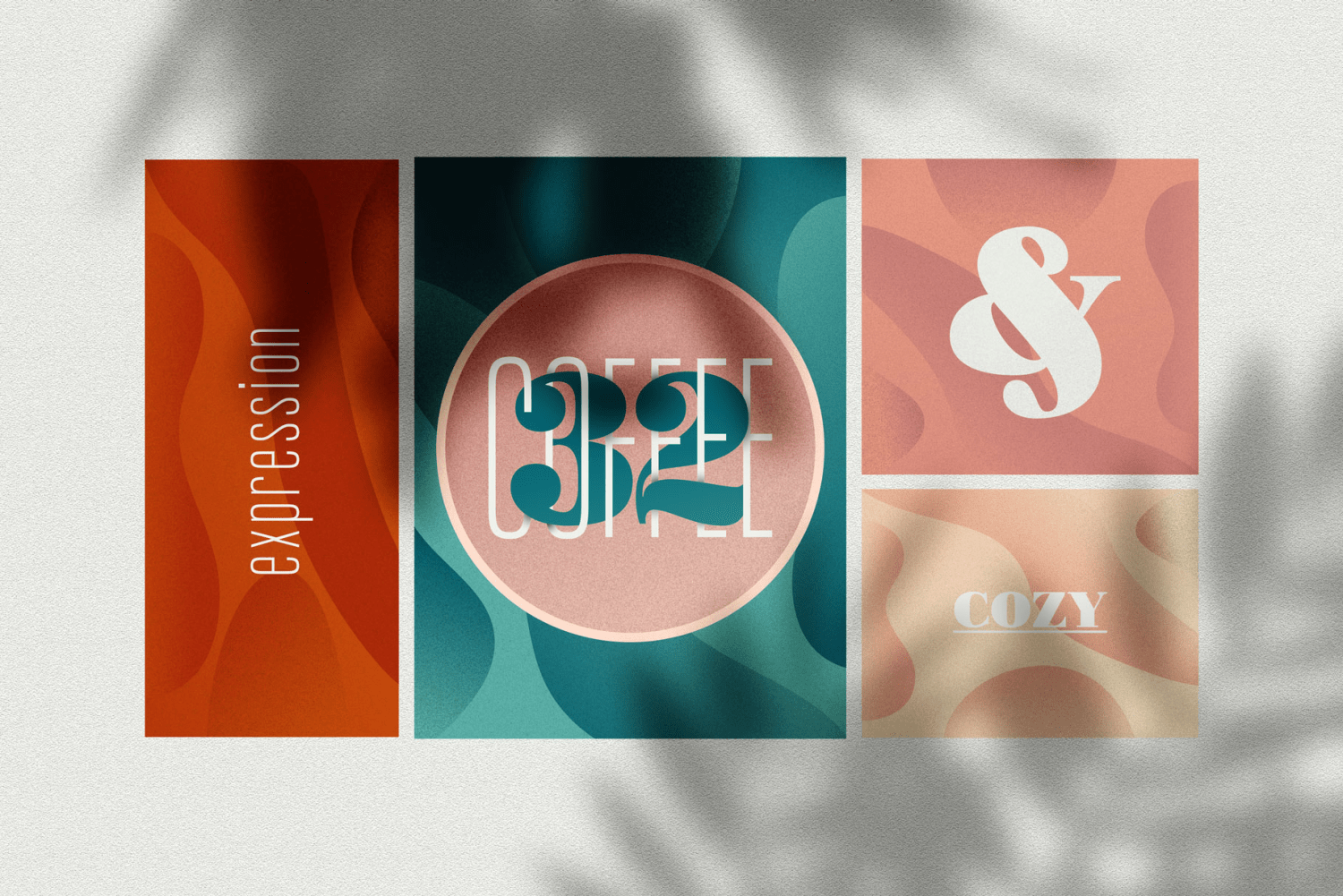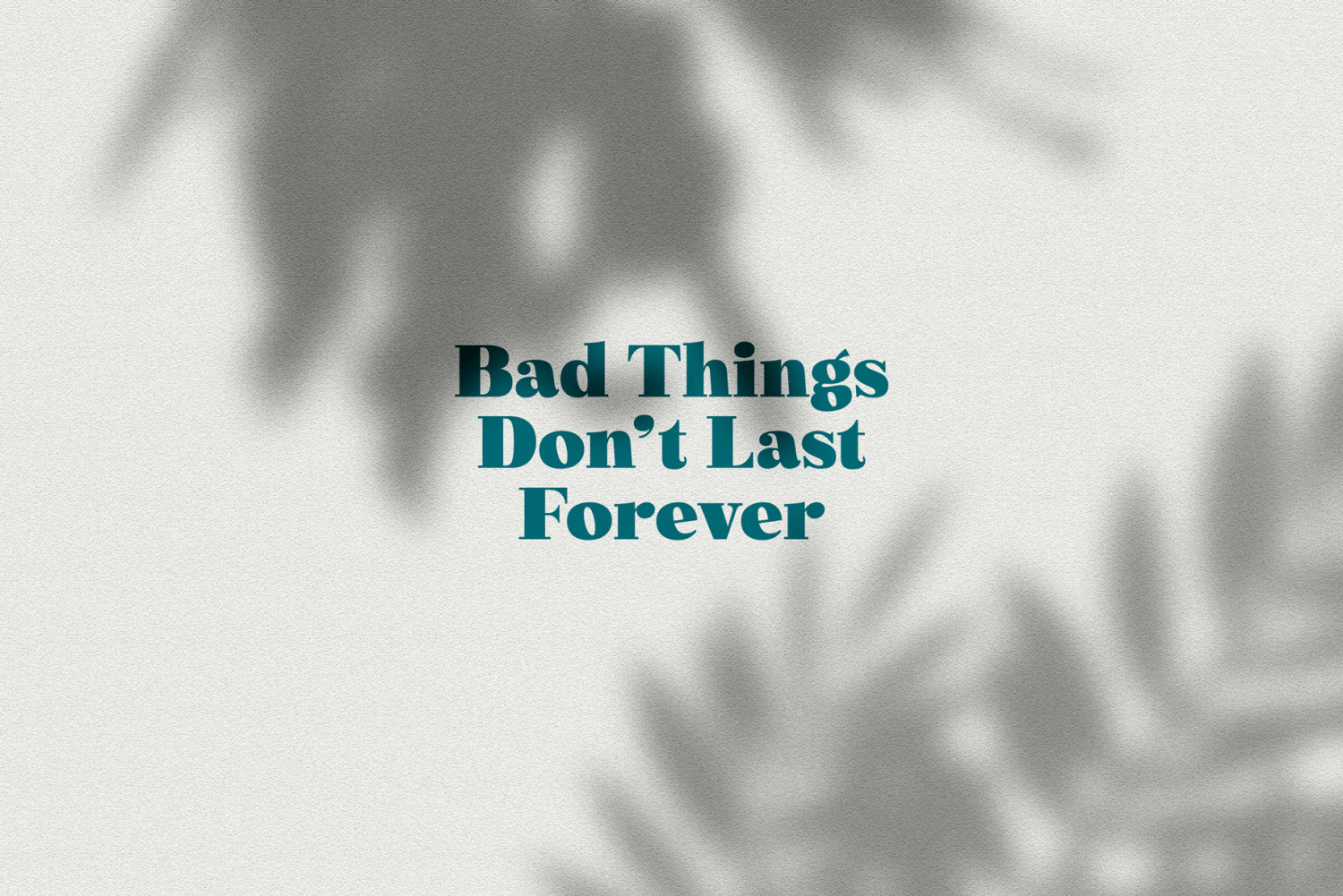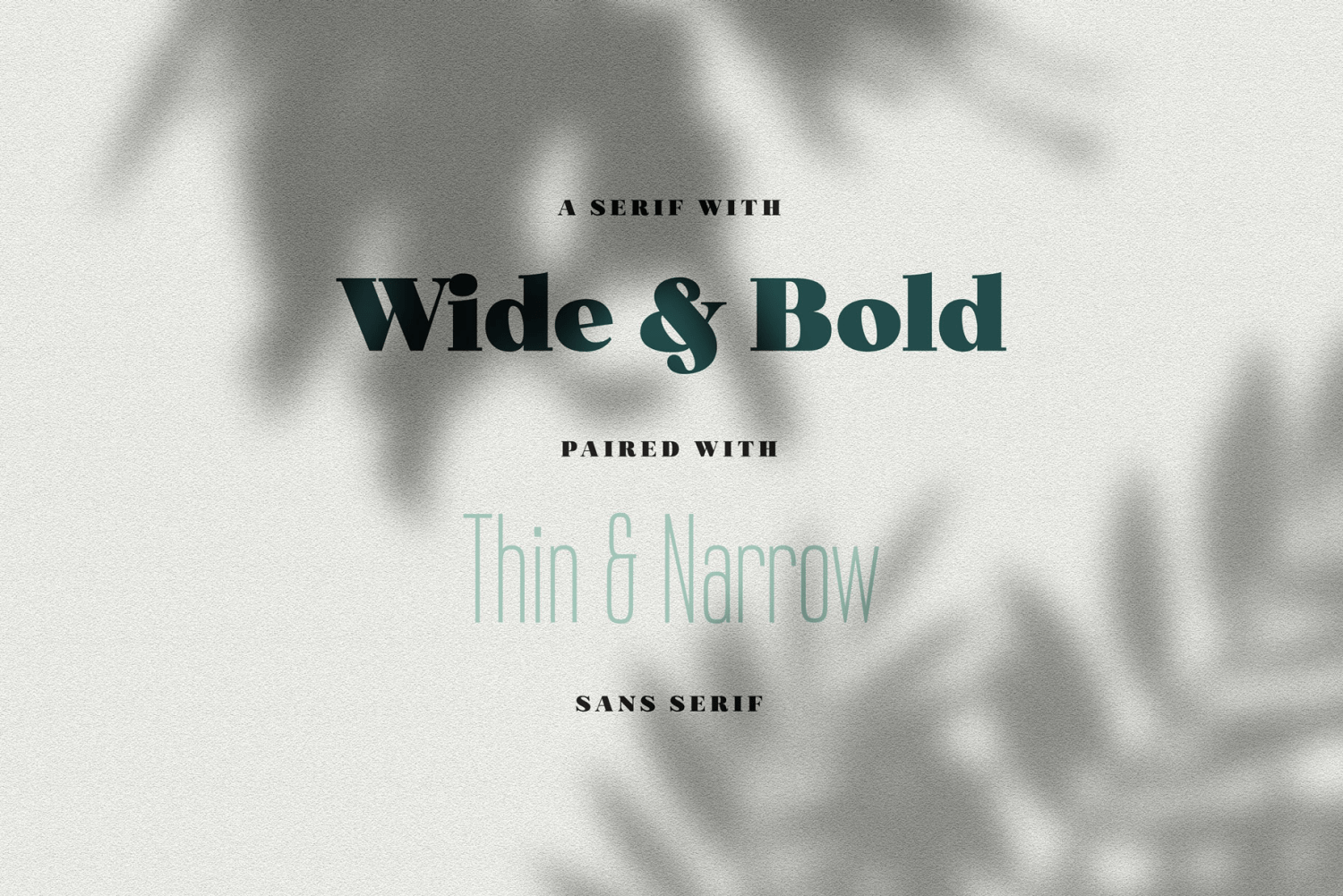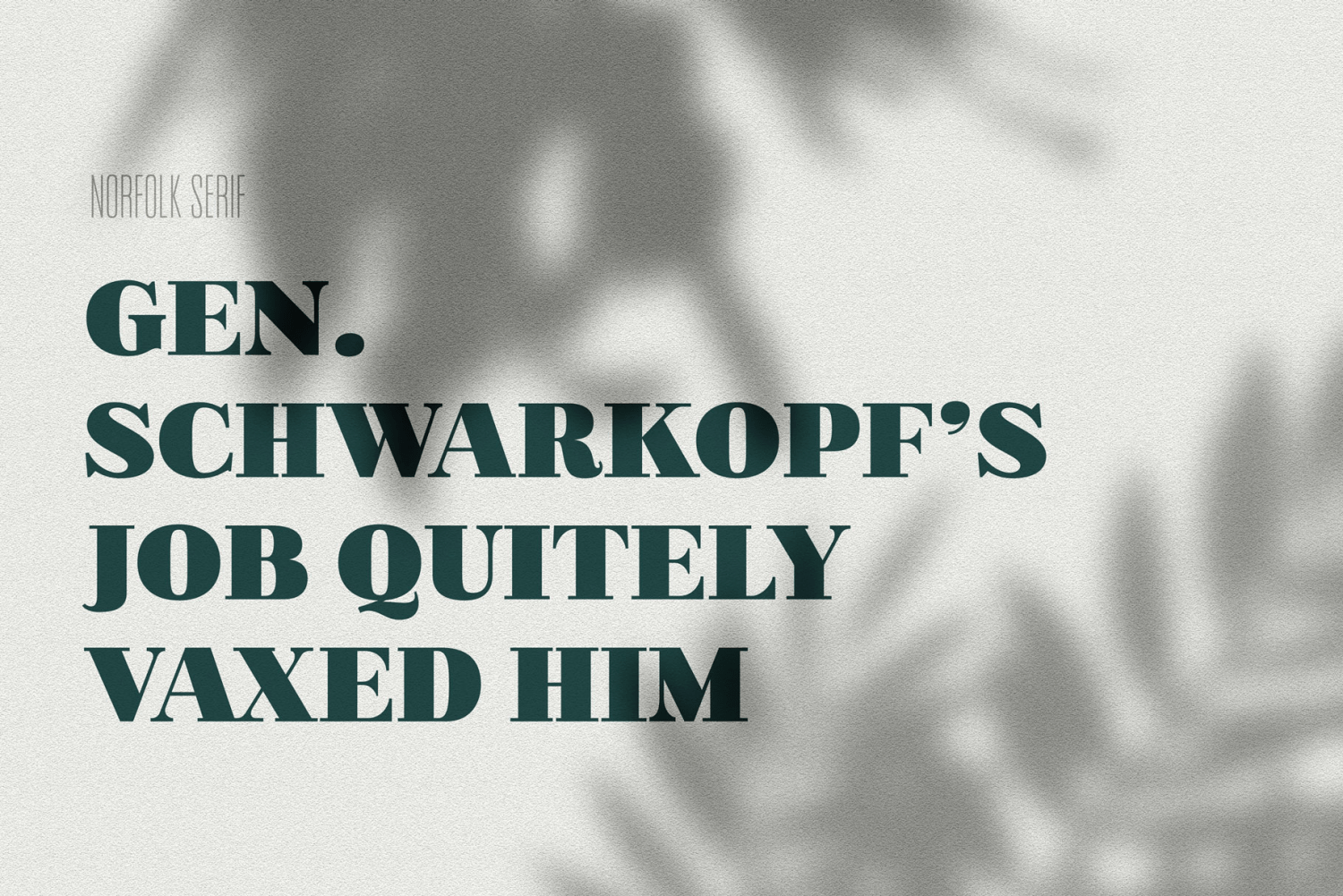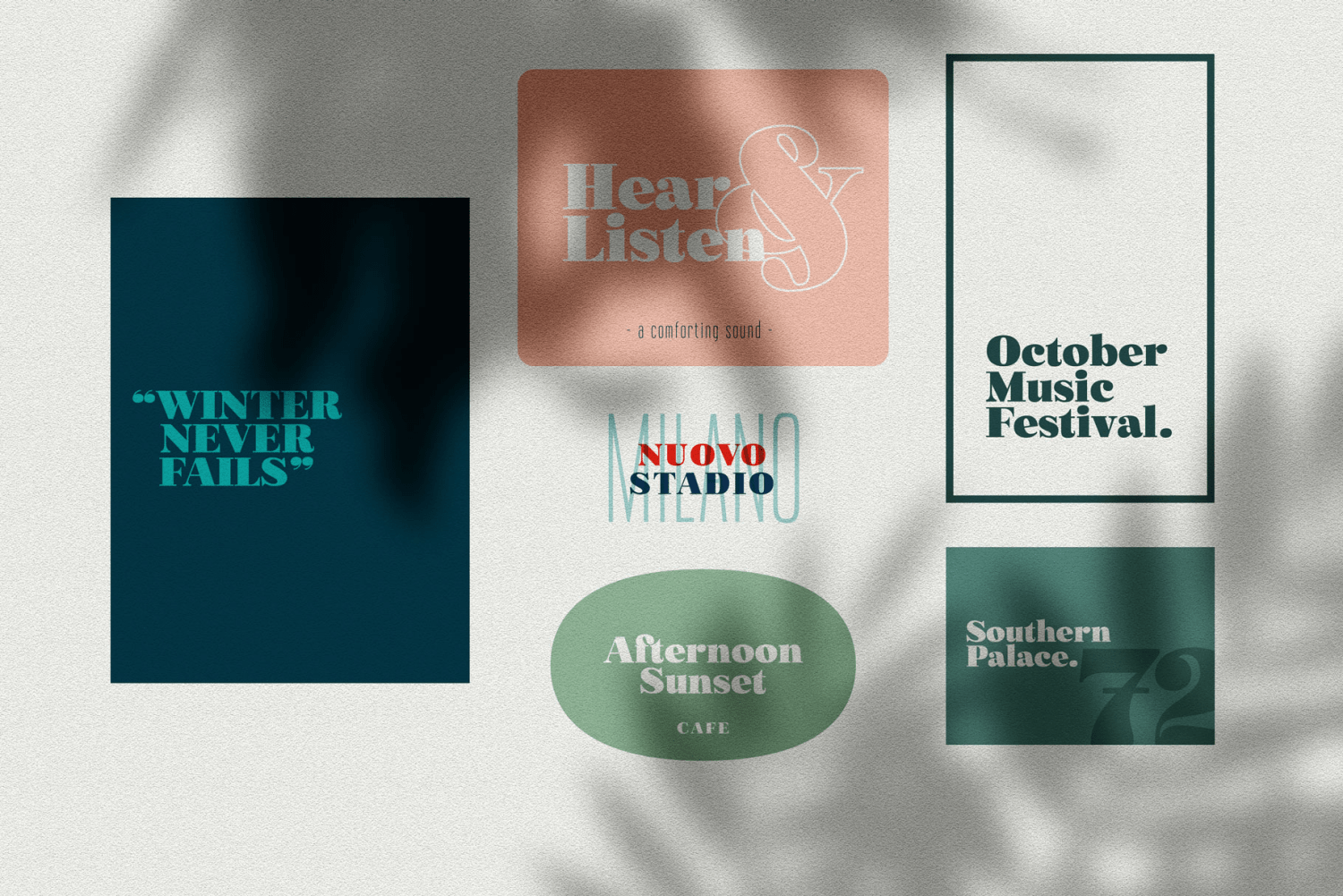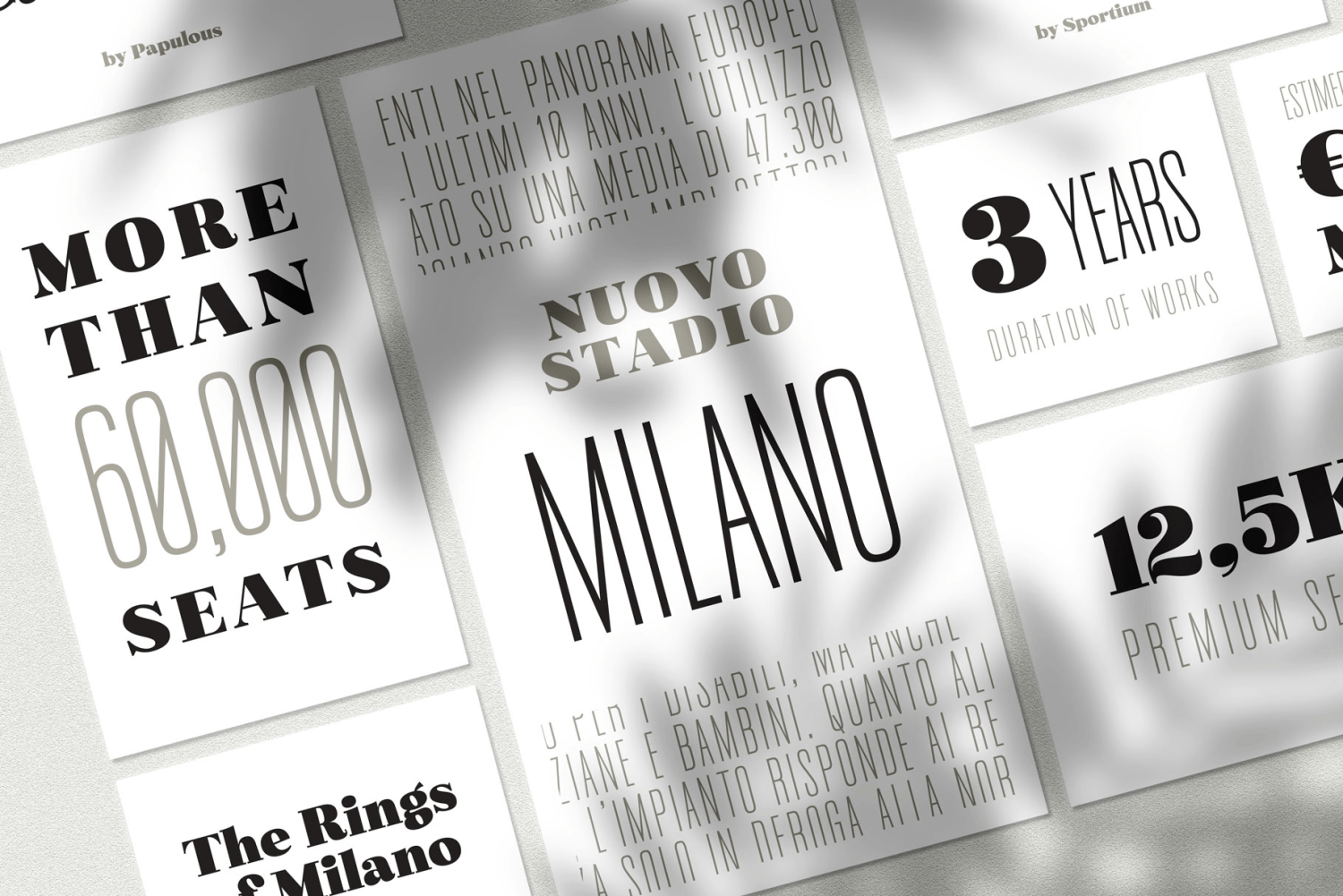
About Norfolk
Introducing Norfolk: A new combination of Bold Serif fonts and Narrow Sans Serif fonts. Norfolk is inspired by something simple, elegant, usable, and versatile. So I've made as simple as possible on the fonts. I made it very carefully to get…